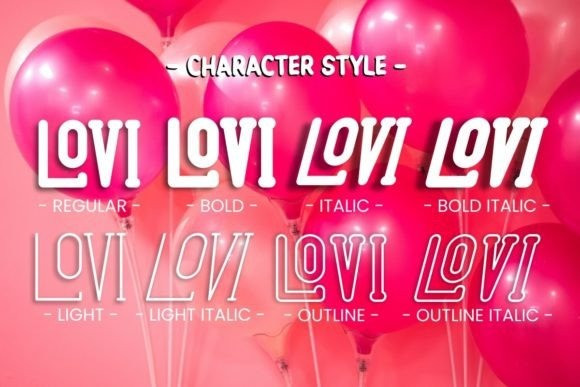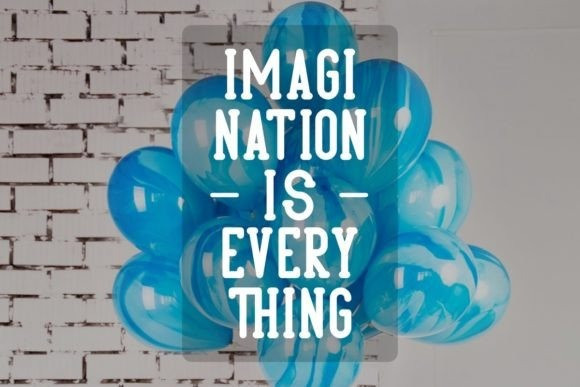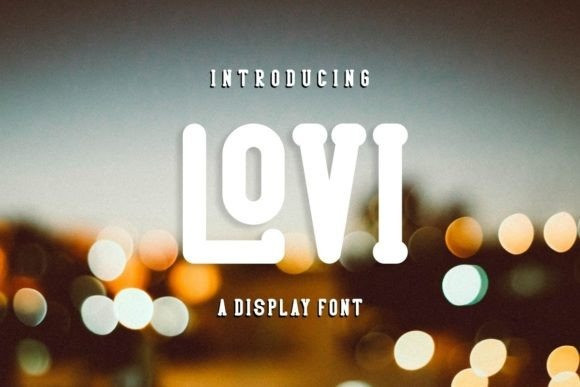
Lovi Display Font
Lovi Display Font is a vibrant and playful typeface designed to bring a sense of excitement to any design project. With its uniqueness, Lovi fun captures attention and adds a touch of whimsy to your designs.
The font’s cheerfulness makes it suitable for a variety of design themes, such as children’s products, playful branding, and invitations. greeting cards, and more. Its dynamic and expressive nature encourages experimentation and creativity, allowing you to craft unique and memorable designs.